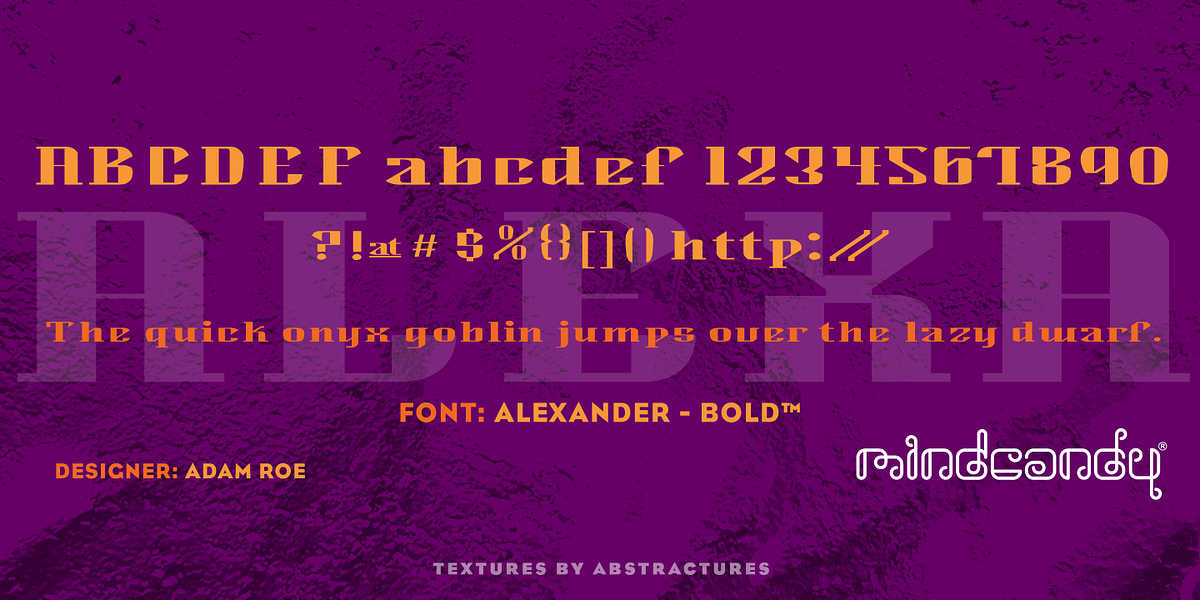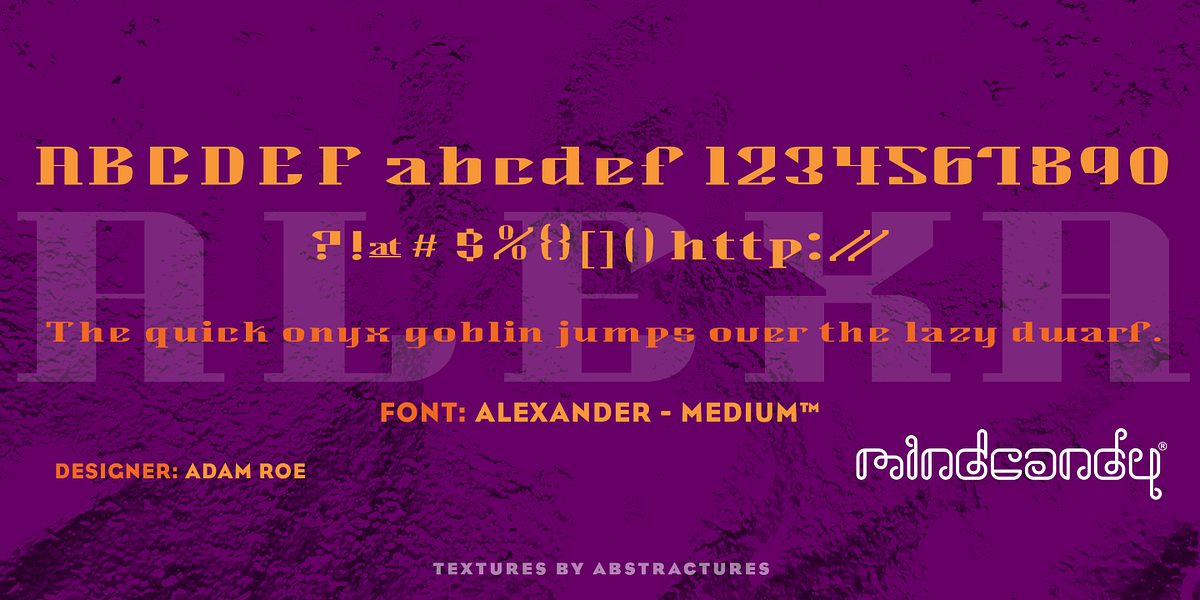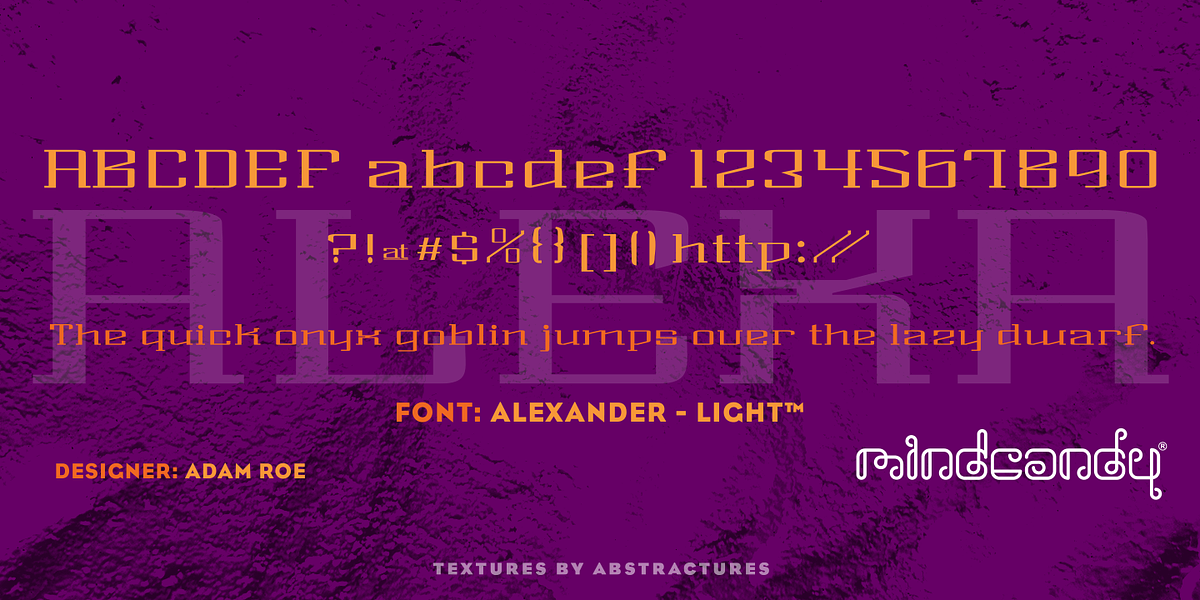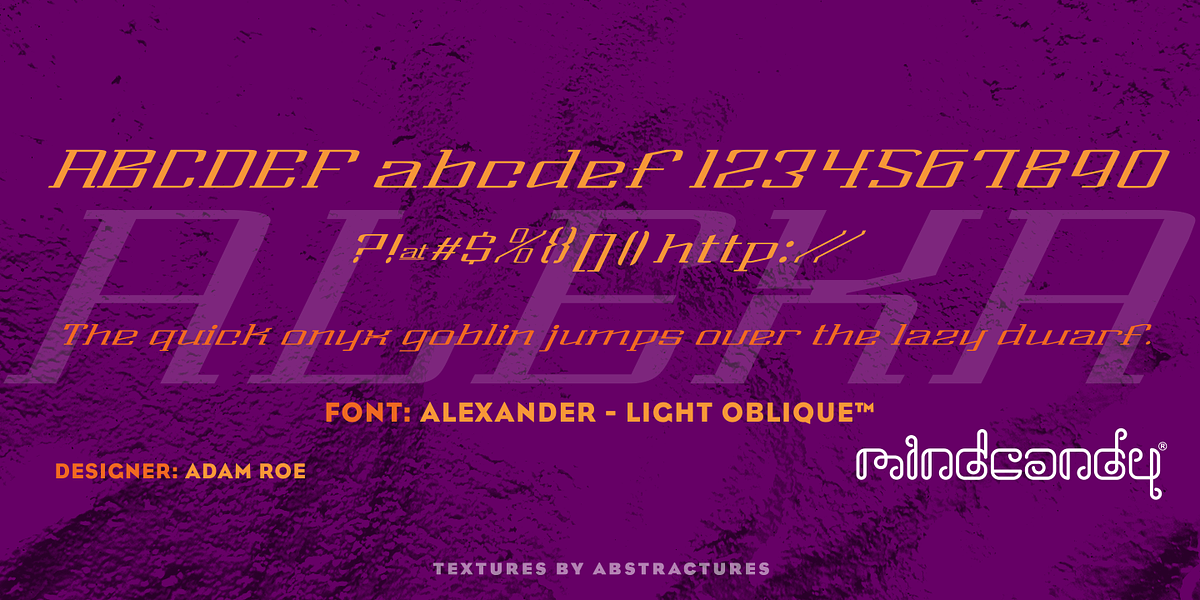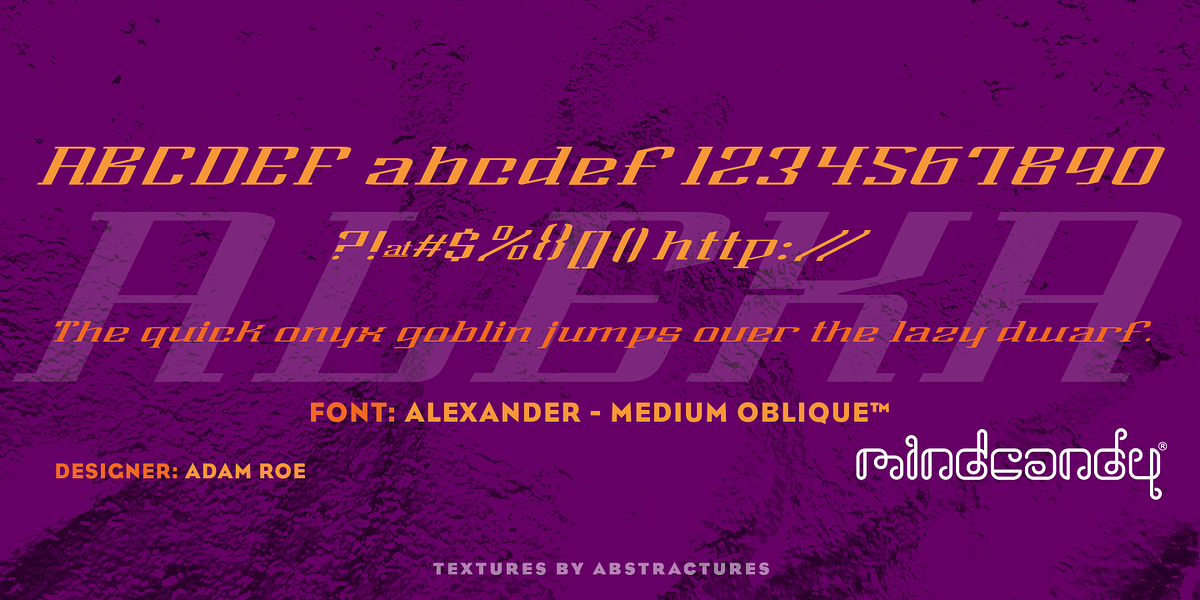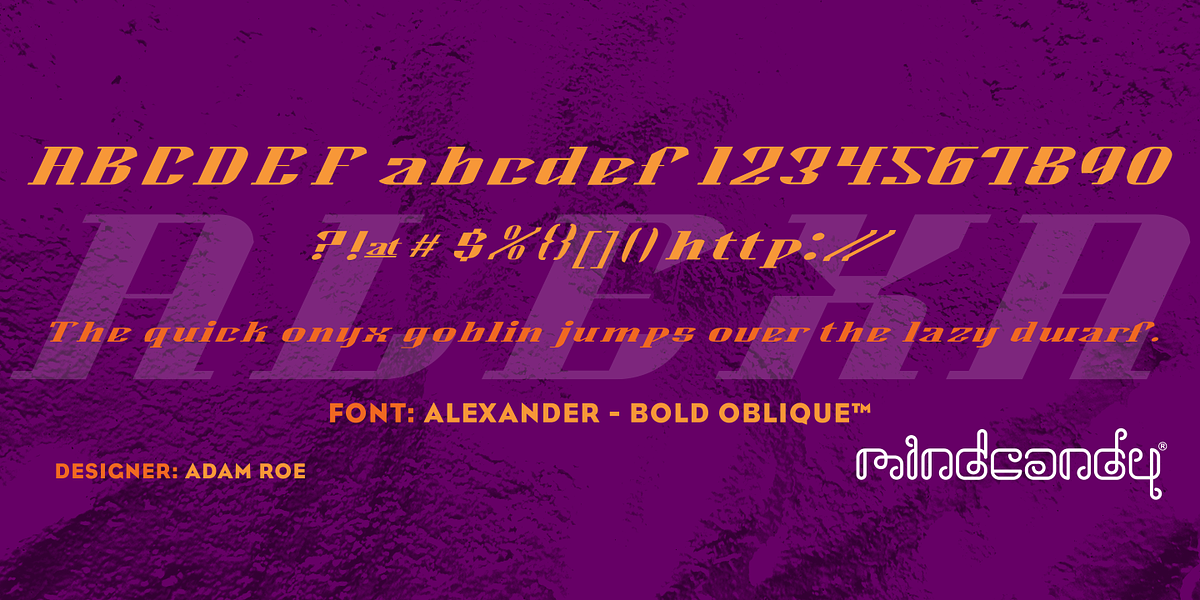
Alexander™
The Alexander™ font family is a contemporary square display slab font designed by Adam Roe. It features a unique design with both thick and thin strokes, giving it a bold yet elegant feel. Available in six weights (Light, Light Oblique, Medium, Medium Oblique, Bold, Bold Oblique), the Alexander™ family offers versatility for various design applications including print, web, app, and digital video.